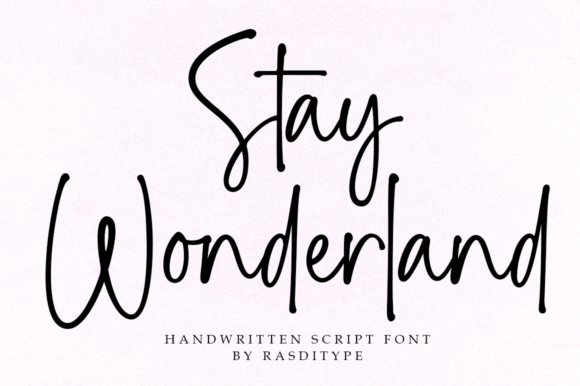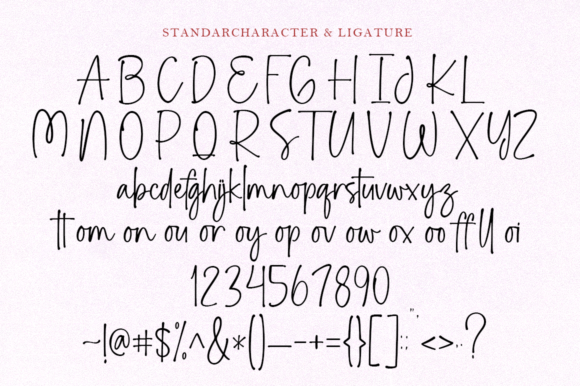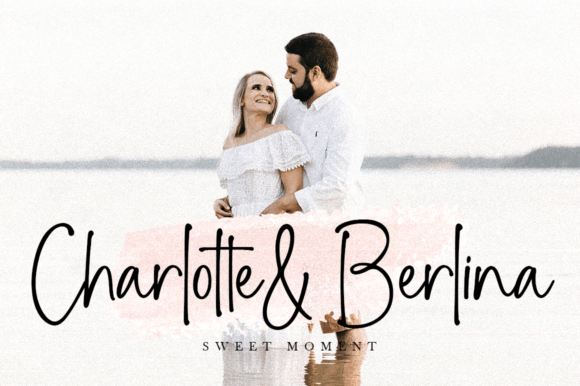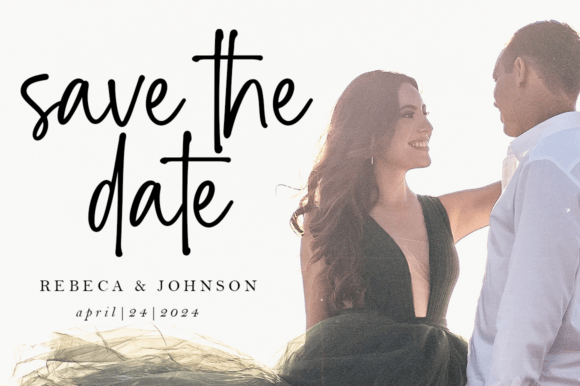
Stay Wonderland Font: A Chic Handwritten Script for Branding
About the Stay Wonderland Font
Elevate your designs with Stay Wonderland Font, a font that combines sophistication with readability. Introducing a brand new handwriting font, stay wonderland, a modern and minimal typeface packed with handwritten ligatures. Stylish Signature adds a chic elegance to websites, wedding stationery, modern logos and personal branding, social media quotes, and more.
Stay Wonderland Font Usage Examples
Stay Wonderland Font Example